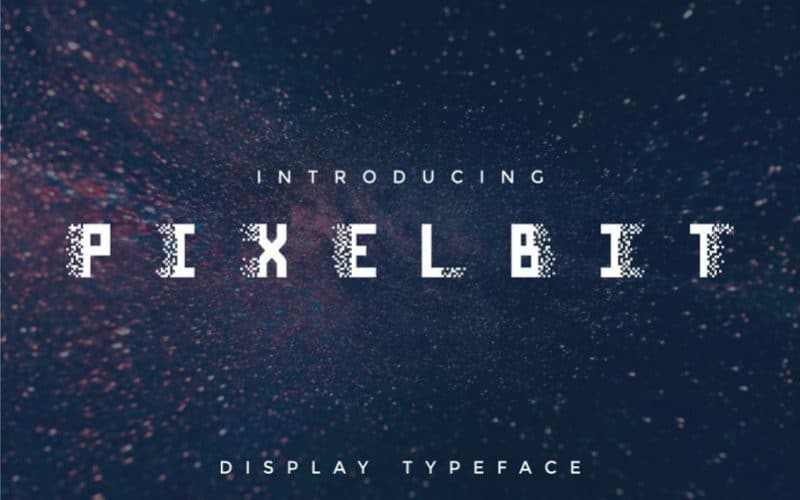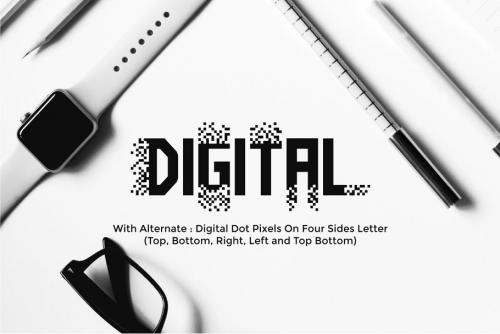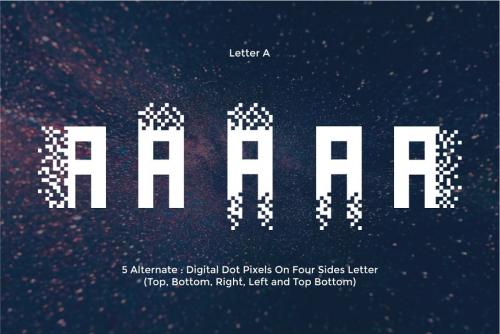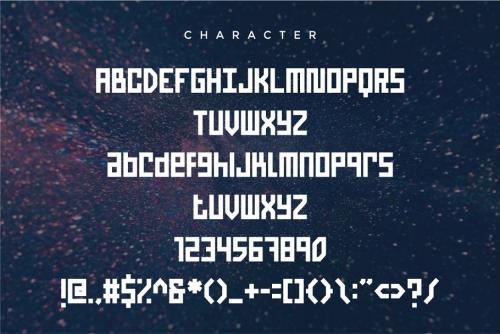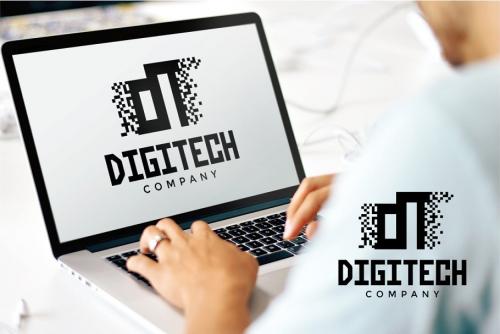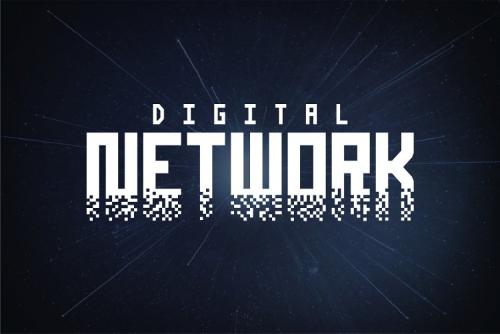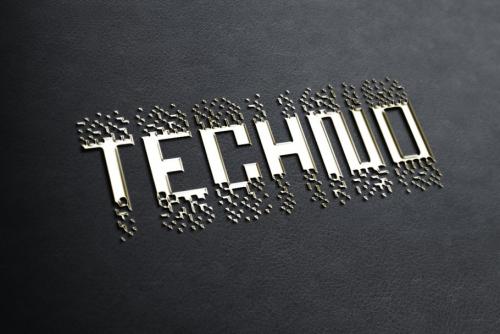
Introducing Pixel Bit – A Modern, Unique and Futuristic Display Typeface. Pixel Bit is great for any kind of display purpose from logos, Tshirt, apparel, quote, handwritten quotes, product packaging, tittle header, poster, merchandise, social media, labels, branding & greeting cards.
- Designer: PutraCetol Studio